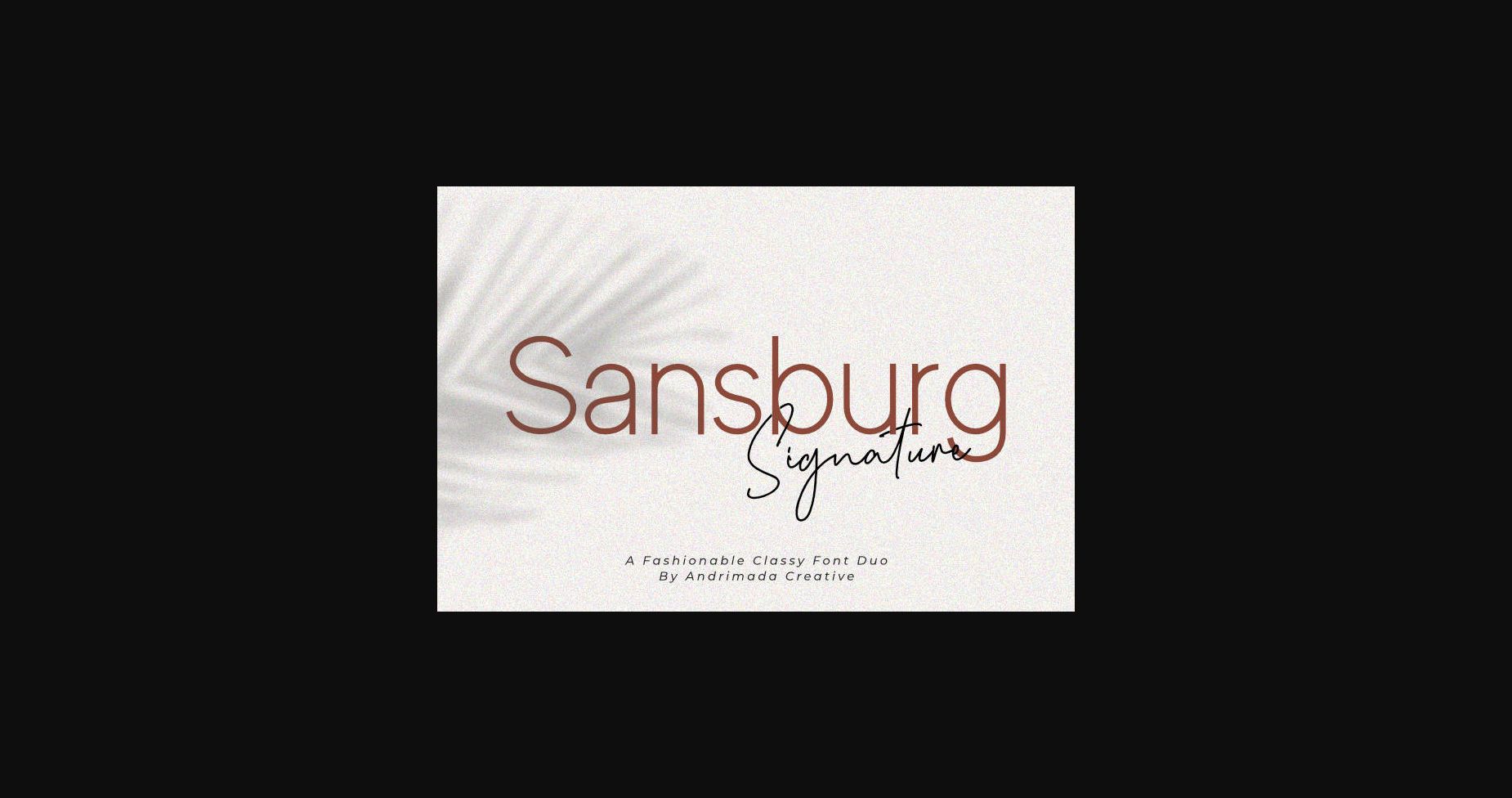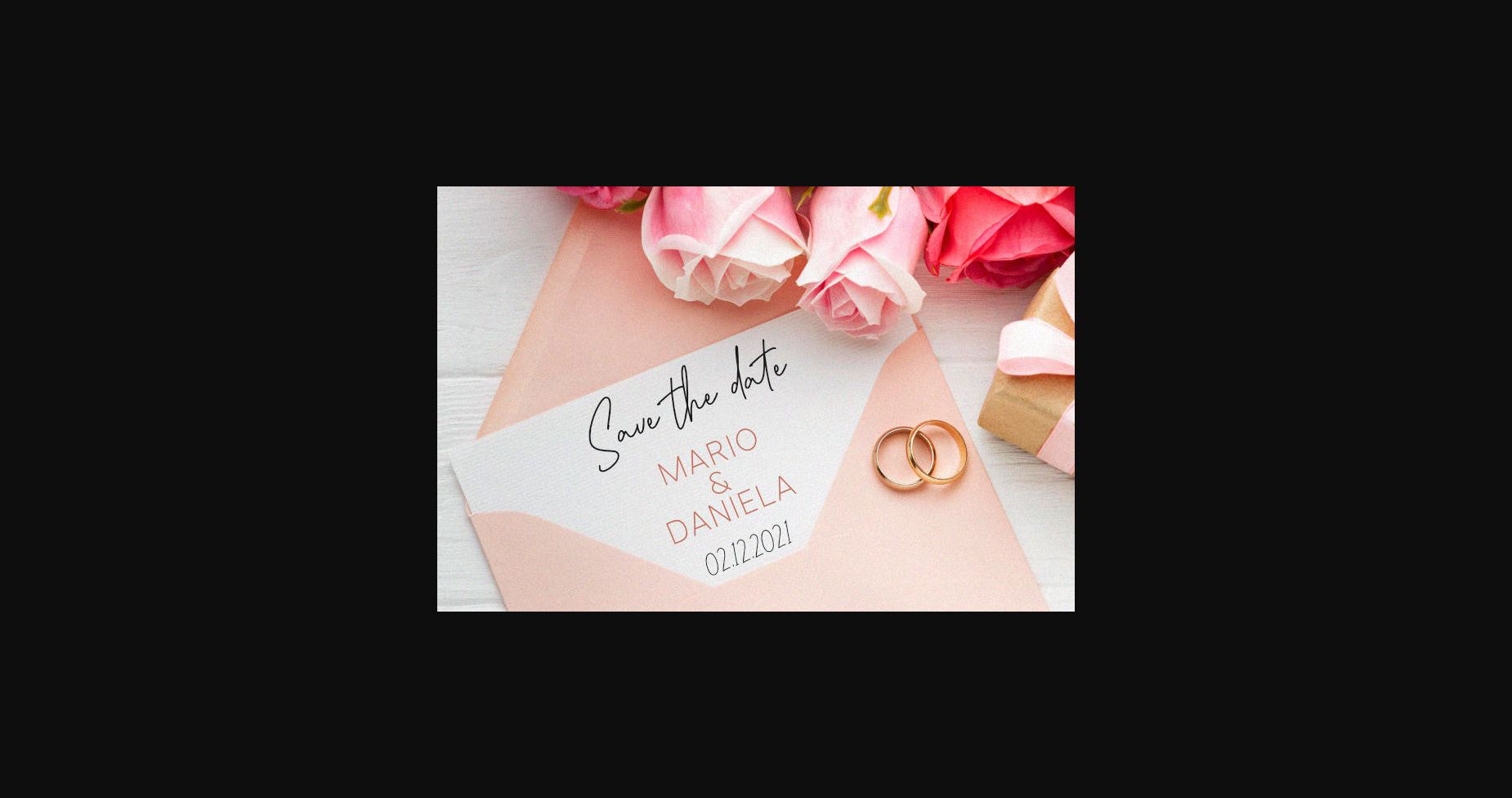
About Sansburg Font
Sansburg is a cool and versatile duo font (script and sans serif). It is PUA encoded which means you can access all of the glyphs and swashes with ease! Fall in love with its incredibly versatile style and use it to create spectacular designs!